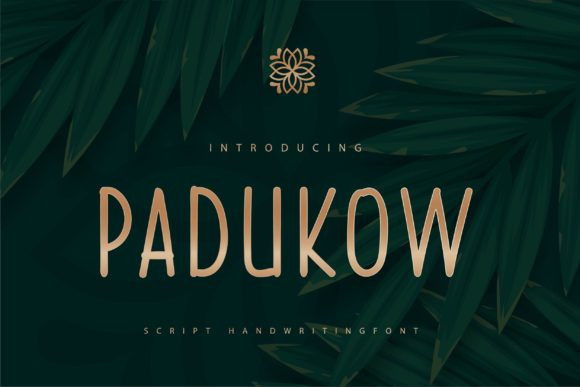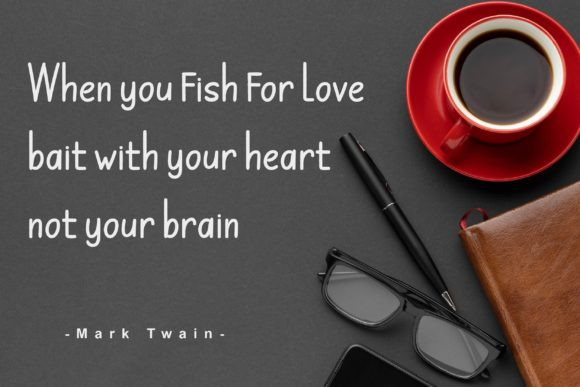
Padukow Font
Padukow is a simple, thin lettered, natural and friendly handwritten font. Whether you are using it for cartoon-related designs, children’s games, quotes, titles, brand names, book covers, posters, or just any creation that requires a touch of beauty, this font is a great choice.